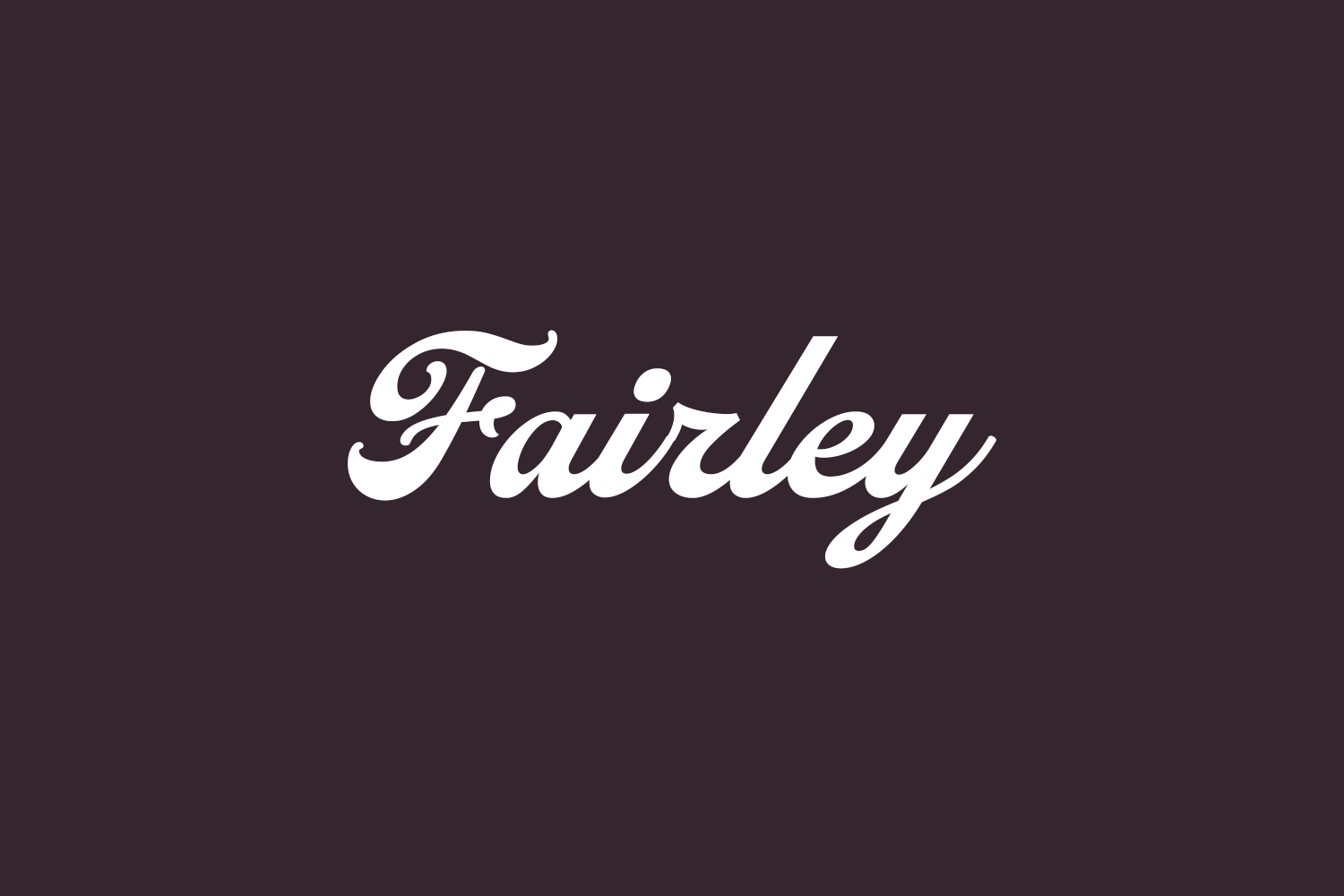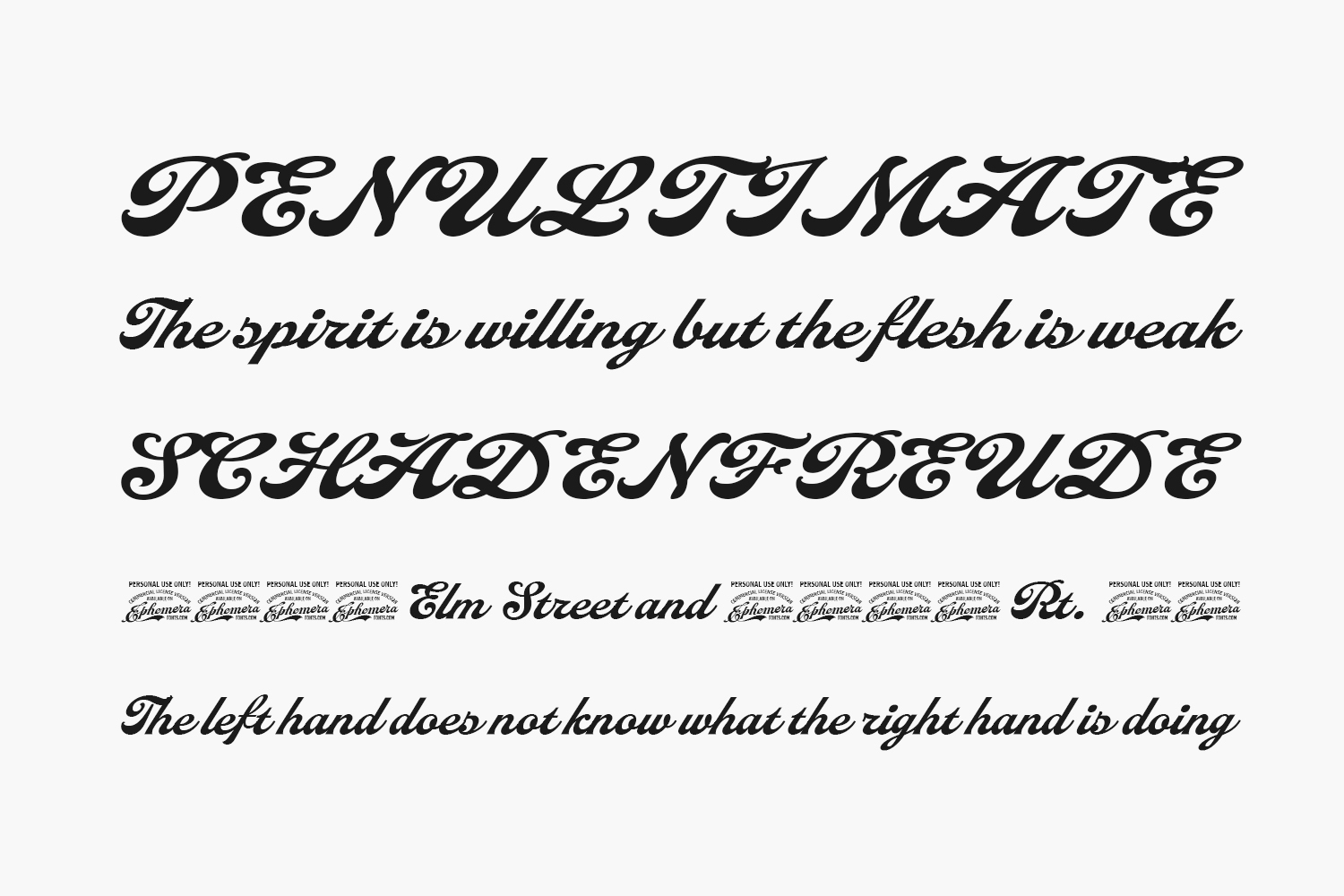
Fairley Free Font features a classic, vintage style reminiscent of old-school signage and advertising. It is a bold and distinctive font that is designed to stand out and capture attention.
The font is characterized by its thick, block-like letters with sharp edges and a slightly distressed texture that gives it an authentic vintage feel. It includes uppercase letters, lowercase letters, numbers, and basic punctuation marks, making it versatile and suitable for a variety of design projects. Fairley Free Font is a demo and free for personal use. Please purchase the full version for commercial use.
Designed by Ilham Herry